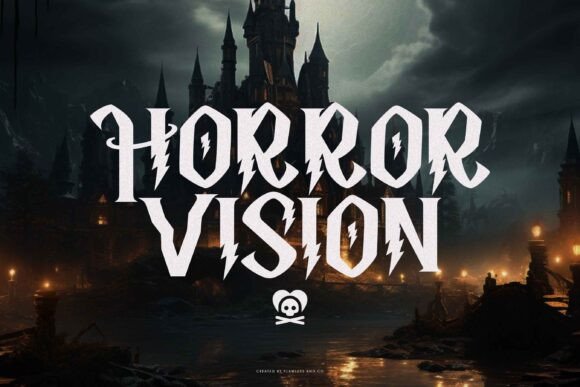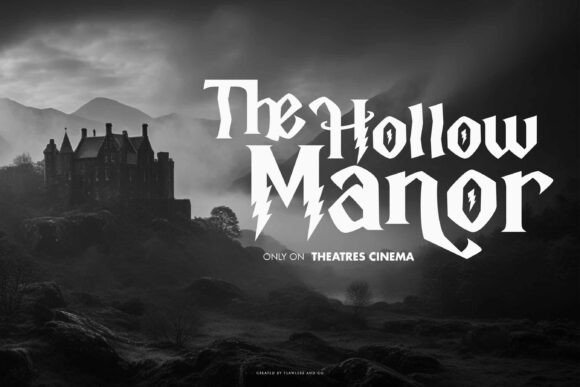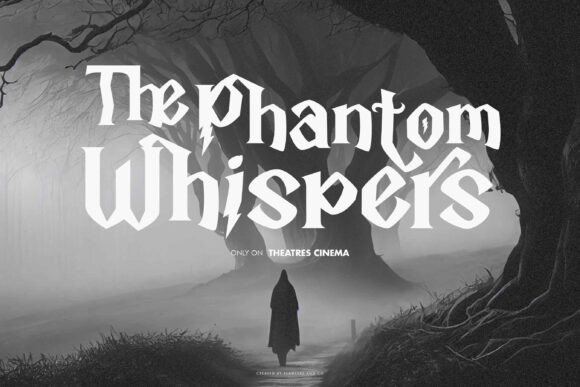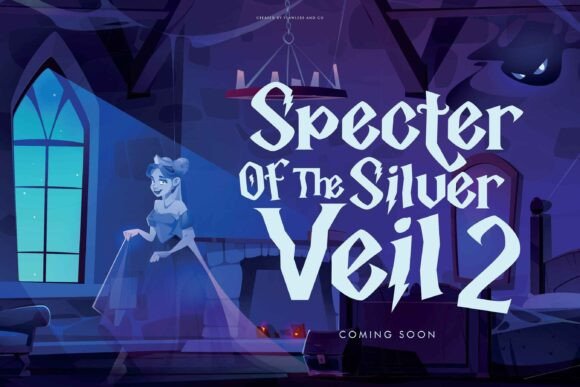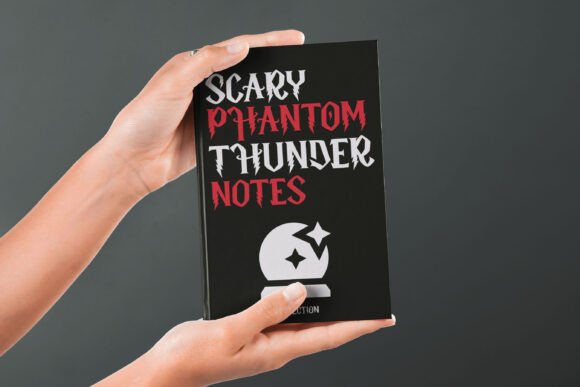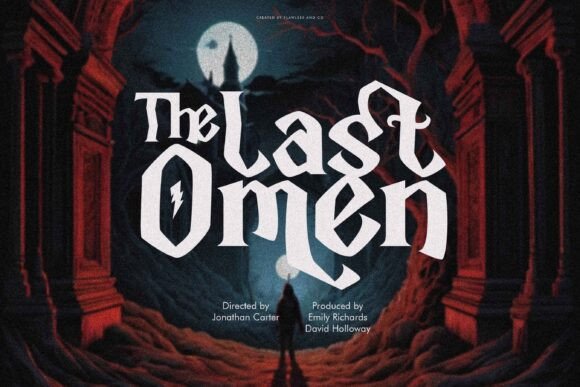
Glimoria Font: Unleash the Horror in Your Designs
Are you looking for a font that can add a spine-chilling and eerie vibe to your designs? Look no further than Glimoria, a horror display font that is sure to send shivers down the spines of your audience. With its sharp edges and haunting aesthetic, Glimoria is the perfect choice for designers and crafters who want to create horror movie posters, Halloween-themed designs, spooky invitations, thriller book covers, gaming titles, and eerie branding projects.
The Perfect Font for Horror and Thriller Designs
Glimoria is a carefully crafted font that is designed to evoke a sense of fear and unease. Its sharp edges and jagged lines give it a menacing look that is sure to grab attention. Whether you’re designing a poster for a horror movie, creating a spooky invitation for a Halloween party, or crafting a thriller book cover, Glimoria is the perfect font to set the tone for your design.
Key Features of Glimoria Font
- Spine-chilling aesthetic: Glimoria’s unique design is sure to send shivers down the spines of your audience.
- Sharp edges: The font’s sharp edges give it a menacing look that is perfect for horror and thriller designs.
- Eerie vibe: Glimoria’s haunting aesthetic is sure to create an eerie atmosphere in your designs.
- High-quality design: The font is carefully crafted to ensure that it looks great in any design.
Use Cases for Glimoria Font
Glimoria is a versatile font that can be used in a variety of design projects. Here are some use cases where Glimoria is sure to shine:
- Horror movie posters: Glimoria’s spine-chilling aesthetic makes it perfect for horror movie posters.
- Halloween-themed designs: The font’s eerie vibe is sure to add a spooky touch to any Halloween-themed design.
- Spooky invitations: Glimoria is perfect for creating spooky invitations for Halloween parties or other horror-themed events.
- Thriller book covers: The font’s menacing look makes it perfect for thriller book covers.
- Gaming titles: Glimoria’s sharp edges and haunting aesthetic make it perfect for gaming titles.
- Eerie branding projects: The font’s unsettling yet captivating look makes it perfect for eerie branding projects.
Why Choose Glimoria Font?
There are many fonts available that can add a spooky touch to your designs, but Glimoria stands out from the rest. Here are some reasons why you should choose Glimoria for your next design project:
- Unique design: Glimoria’s unique design is sure to grab attention and set your design apart from others.
- High-quality craftsmanship: The font is carefully crafted to ensure that it looks great in any design.
- Versatility: Glimoria can be used in a variety of design projects, from horror movie posters to eerie branding projects.
If you’re looking for a font that can add a spine-chilling and eerie vibe to your designs, look no further than Glimoria. With its sharp edges and haunting aesthetic, Glimoria is the perfect choice for designers and crafters who want to create horror movie posters, Halloween-themed designs, spooky invitations, thriller book covers, gaming titles, and eerie branding projects. Its unsettling yet captivating look will instantly set the perfect dark atmosphere, making it a must-have font for any designer or crafter.